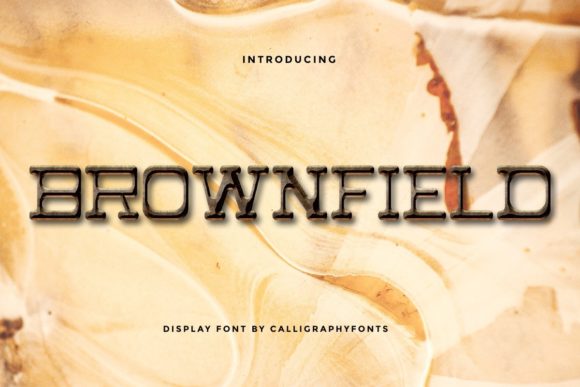
Prepare to embark on a typographic adventure with Brownfield Font, the epitome of vintage charm and Western charisma. This slab serif font, lovingly crafted by CalligraphyFonts, is your gateway to captivating creations that exude a timeless allure.
Imagine your designs adorned with Brownfield's bold strokes and rugged edges, evoking the spirit of the Wild West in every letterform. Its vintage essence adds a touch of nostalgia to your creations, transporting you to an era where craftsmanship reigned supreme.
Brownfield's versatility knows no bounds. Unleash your creativity and adorn your cards with its rustic charm, elevate your branding with its distinctive character, or add a touch of authenticity to your labels. With Brownfield, the possibilities are endless.
Visualize the impact Brownfield will have on your creations. Its bold presence commands attention, while its vintage flair adds a layer of depth and intrigue. Trust in its ability to transform your designs into masterpieces that leave a lasting impression.
Seize the opportunity to add Brownfield Font to your typographic arsenal. Let its rugged beauty enhance your projects and create a visual impact that resonates with your audience. Discover the power of typography and elevate your designs to new heights with Brownfield Font.